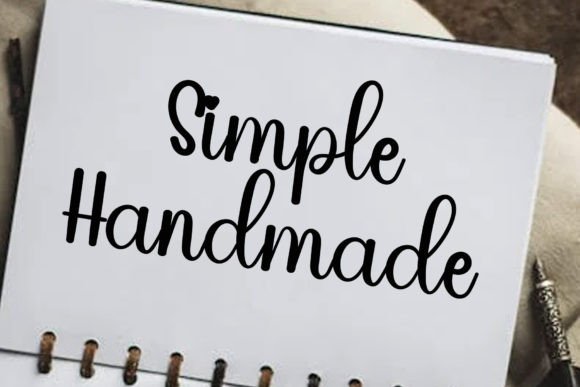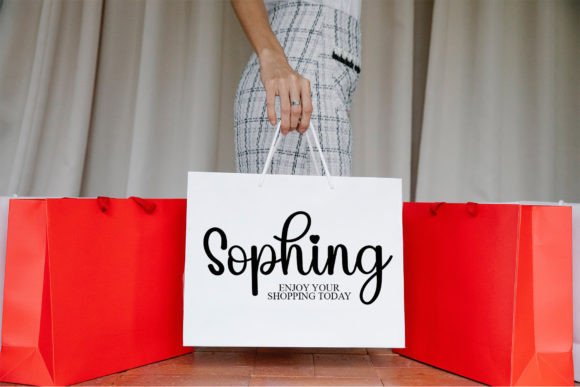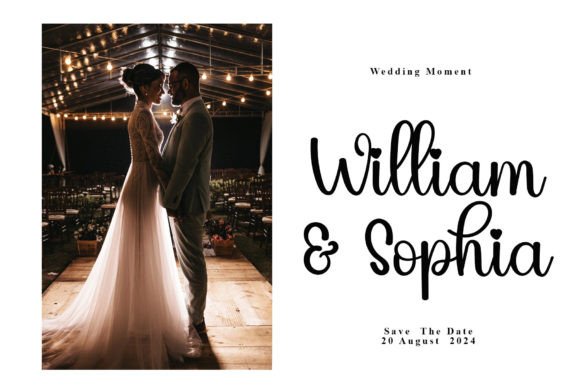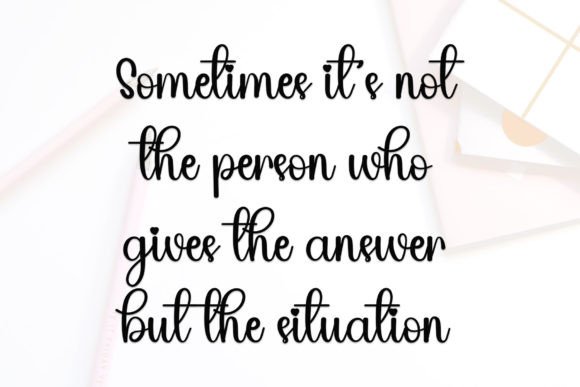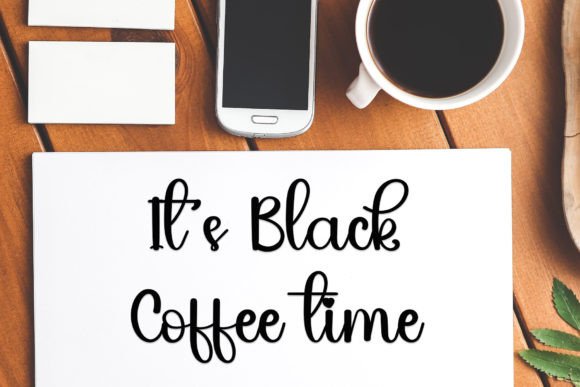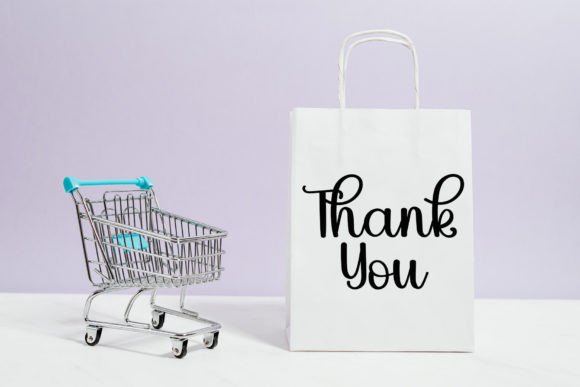
The Delight Font: A Timeless Choice for Creative Projects
Have you ever been in the middle of a design project, and suddenly, you’re stuck on finding the perfect font? I recall a particularly frustrating experience while working on a client’s wedding invitation. The design was almost complete, but the font just wasn’t right. That’s when I stumbled upon the Delight font, and it completely transformed my design. In this article, we’ll dive into the world of Delight font, exploring its unique features, and how to make the most of it in your creative projects.
A Personal Review of Delight Font
I’m excited to share my honest review of the Delight font. As a designer, I’m always on the lookout for fonts that can elevate my work and make it stand out.
What I Love About Delight Font
- ✨ Elegant and Refined: Delight font boasts an incredibly distinct and timeless style that’s perfect for projects that require a touch of sophistication.
- ✅ Versatile: This font is neat and beautiful, making it suitable for a wide range of projects, from wedding invitations to branding and advertising.
- 💫 Unique: The elegant touch in Delight font sets it apart from other fonts, giving your designs a unique edge.
While Delight font is an excellent choice, there are a few things to keep in mind:
- 🤔 Legibility at Small Sizes: Like many script fonts, Delight can be a bit challenging to read at very small sizes. It’s best used at larger sizes, such as headings or titles.
- ⚠️ Pairing with Other Fonts: Delight font is a statement font, so it’s essential to pair it with a font that complements its elegance. Avoid pairing it with fonts that are too bold or overpowering.
- Experiment with OpenType features, such as Stylistic Alternates and Glyphs, to add more personality to your text.
The Backstory of Delight Font
Delight font was created with the intention of providing a unique and elegant font for designers. The designer aimed to create a font that would be both refined and beautiful, with an elegant touch that sets it apart from other fonts. The result is a timeless font that’s perfect for a wide range of creative projects.
| What is Delight font best used for? | Delight font is perfect for projects that require an elegant and refined touch, such as wedding invitations, branding, and advertising. |
| Is Delight font suitable for body text? | While Delight font is beautiful, it’s best used as a heading or title font. For body text, a more legible font is recommended. |
| Is Delight font available in different weights or styles? | Delight font comes in a single weight, but it features elegant OpenType features, such as stylistic alternates and glyphs, to add more personality to your text. |
In conclusion, Delight font is a beautiful and elegant font that’s perfect for designers, crafters, and creative hobbyists. With its unique features, versatility, and timeless style, it’s an excellent addition to any design project. By following this guide, you’ll be able to make the most of Delight font and create stunning designs that showcase its beauty.